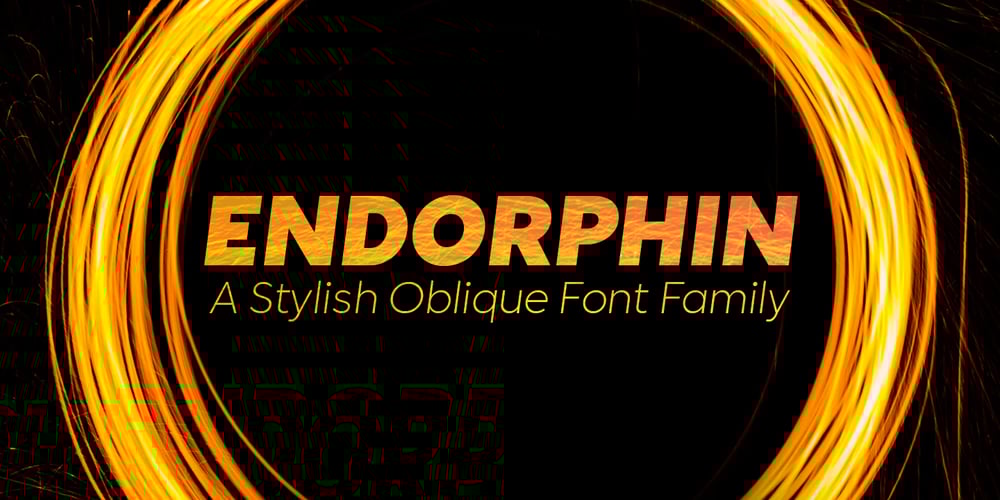
Endorphin Font Family was designed by Dar Meyer and published by Tall Chai. Endorphin contains 9 styles and family package options. Endorphin is a stylish oblique sans-serif font family with weights ranging from Thin (100) to Black (900).Features: Available in 9 weights Over 550 glyphs supporting extended Latin Ideal for display texts: Titles, Logos and Headlines etc. Perfect for branding and rebranding Supports OpenTypes features like Ligatures and Stylistic Alternates Symbols for 10 major currencies including Bitcoin provided in all weights Description:The Endorphin font signifies racing forward. Each oblique character manifests that feeling of achievement and happiness that one gets after a great workout or after a refreshing game.Every character effortlessly integrates with modern design standards and interfaces. The fonts are professional and have a strong personality in them. This makes Endorphin perfect for use in modern apps and websites.Endorphin is built for the designing and marketing squads. It has a trendy geometric characteristic which is ideal for any branding and rebranding.Endorphin has lot of OpenType features (like ligatures and alternates) and the Extended Latin character set supports over a hundred languages.Race Forward!